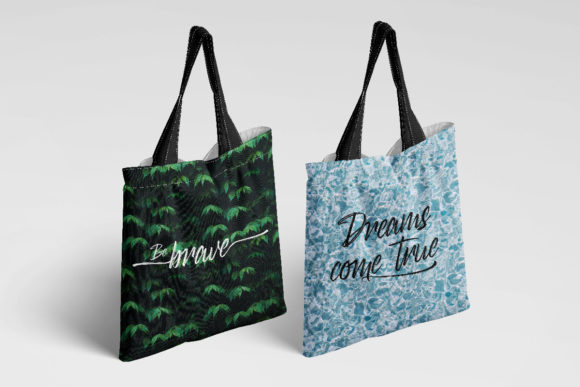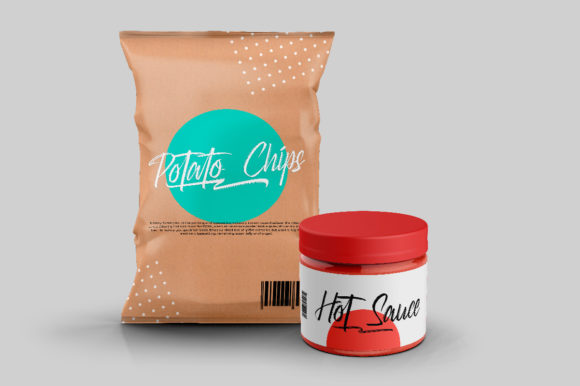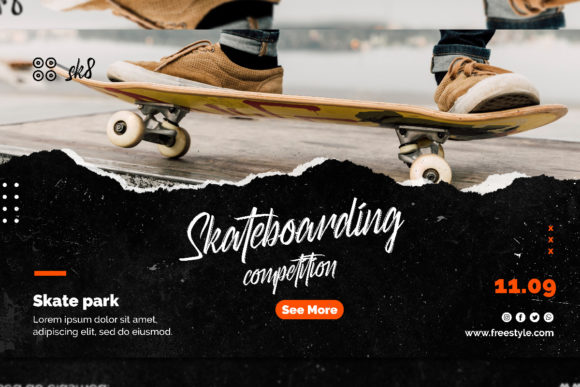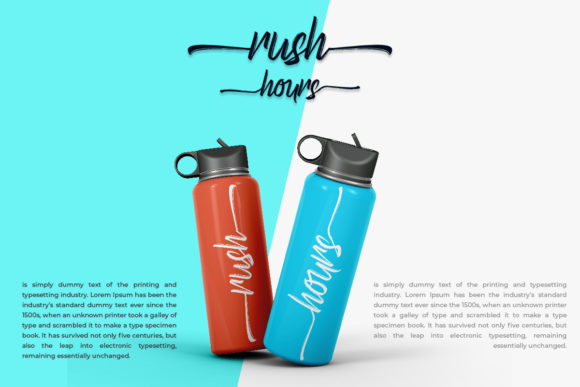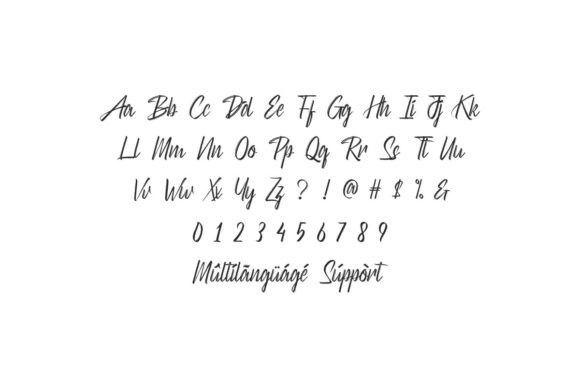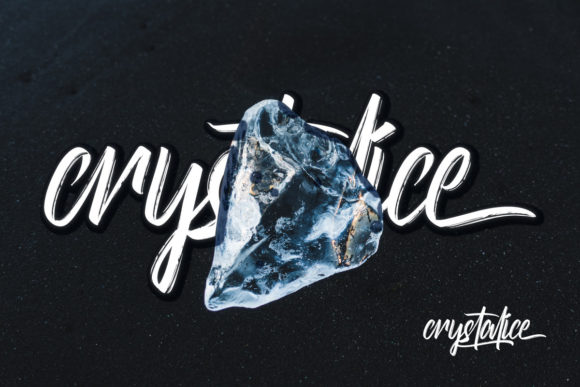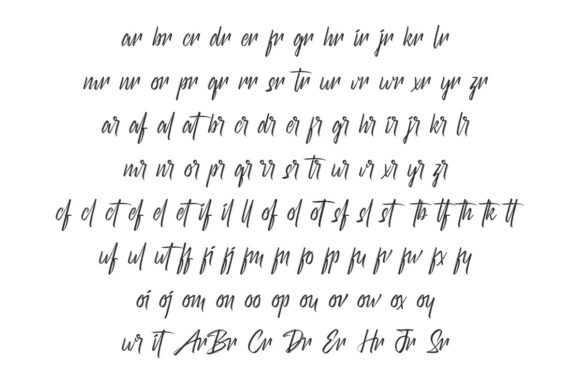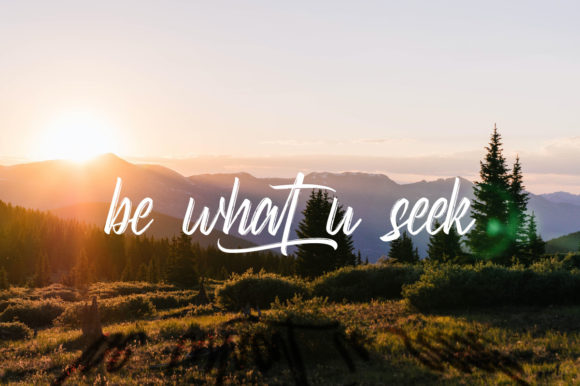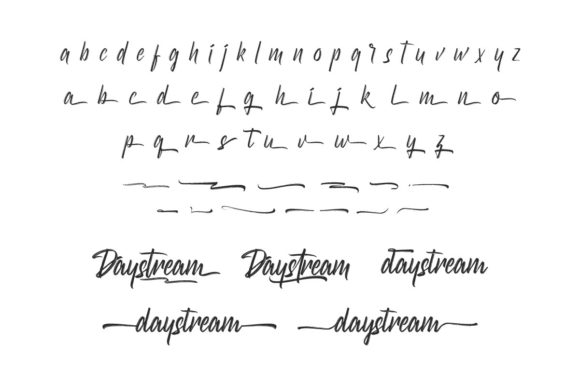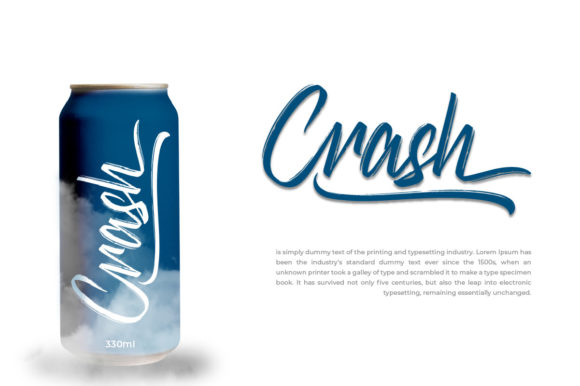
Daystream Font
About Daystream Font
Daystream is an elegant script font with a contemporary atmosphere and impeccable form, inspired by timeless classic calligraphy. Not too thin and not too thick, balanced and varied, this font was designed to enhance the beauty of your projects.